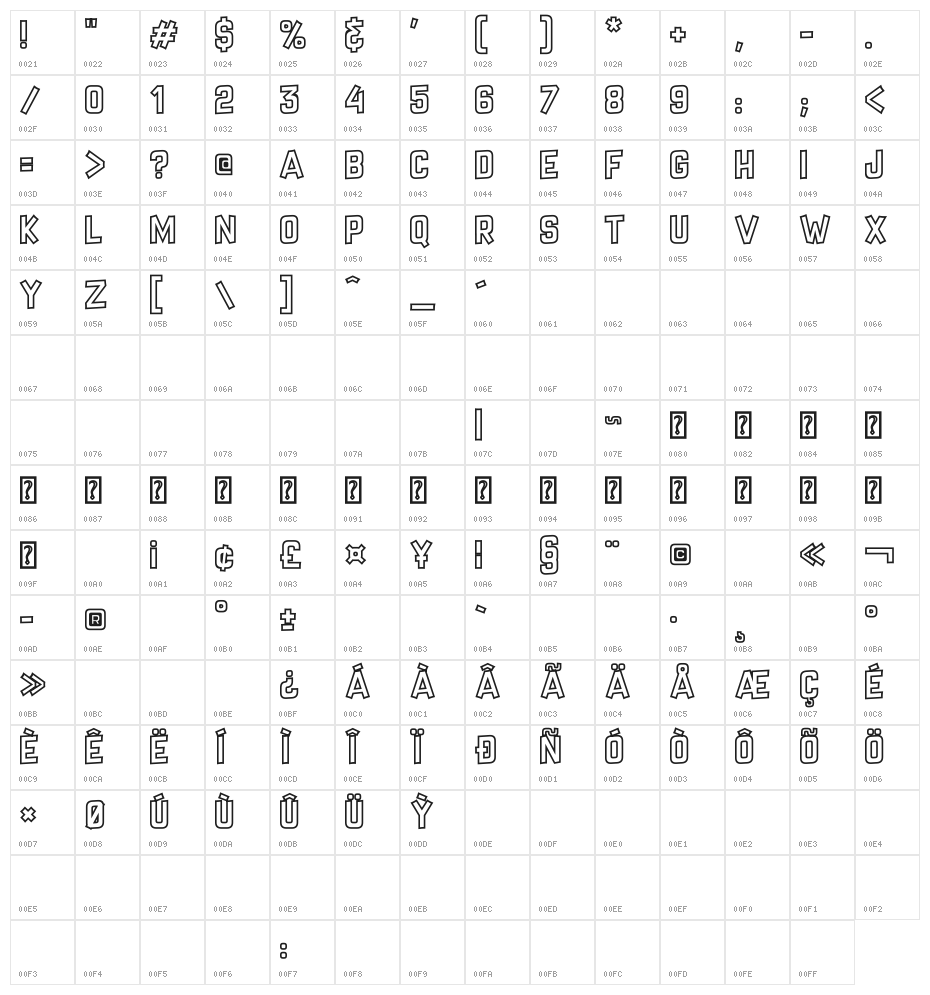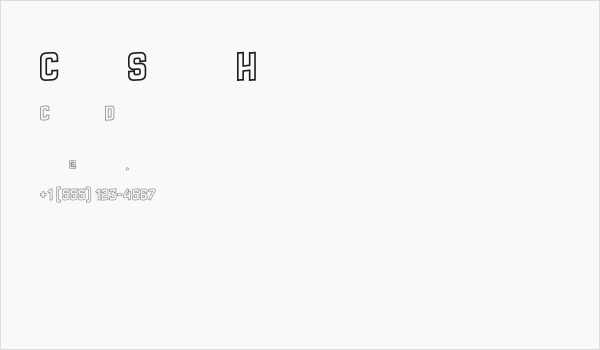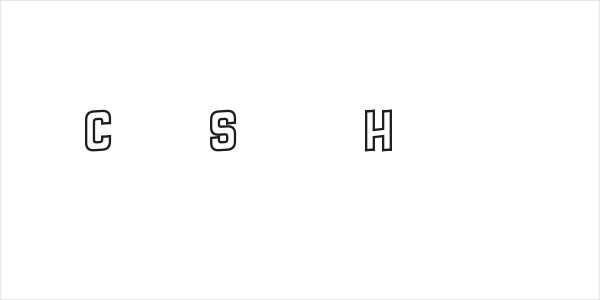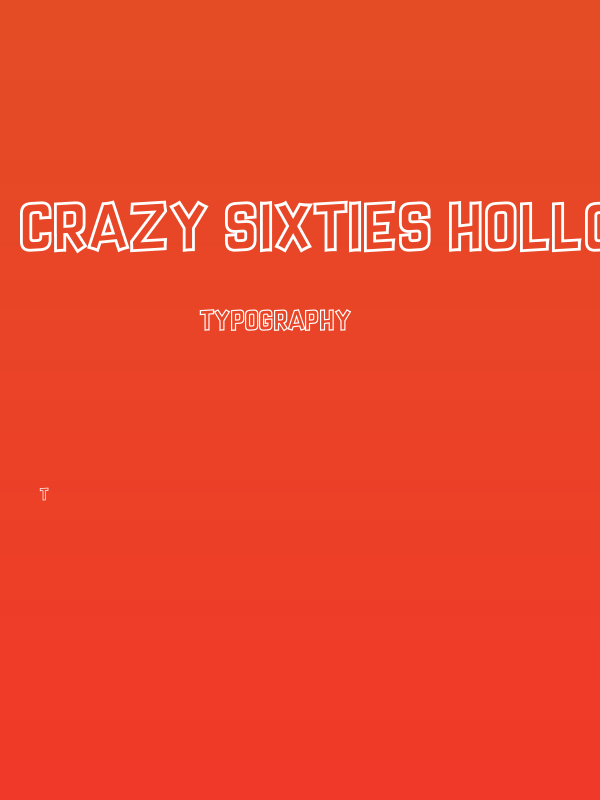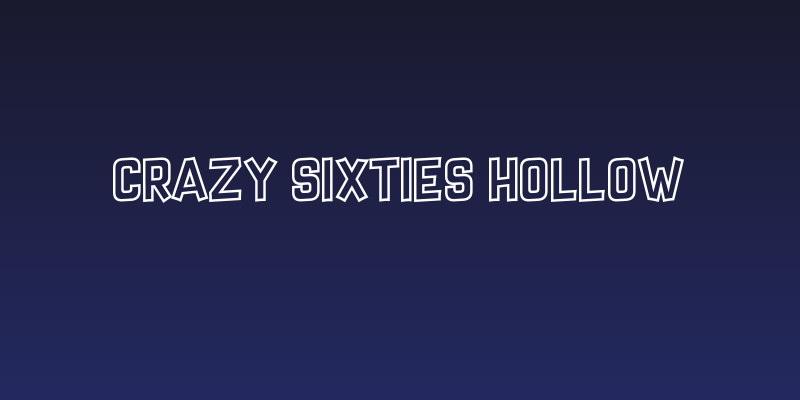
Crazy Sixties Hollow Font
Crazy Sixties Hollow Description
This font features a bold, hollow design with a distinct retro flair reminiscent of the 1960s. The uppercase letters are characterized by their geometric shapes and thick outlines, creating a striking visual impact. The numerals and special characters maintain this bold outline style, ensuring consistency across all glyphs. The font's hollow nature gives it a unique, airy feel, making it stand out in any design. Its playful yet structured appearance makes it ideal for projects that require a touch of nostalgia and boldness.
| Proposed Projects | Ideal for retro-themed posters, vintage branding, album covers, and eye-catching headlines. |